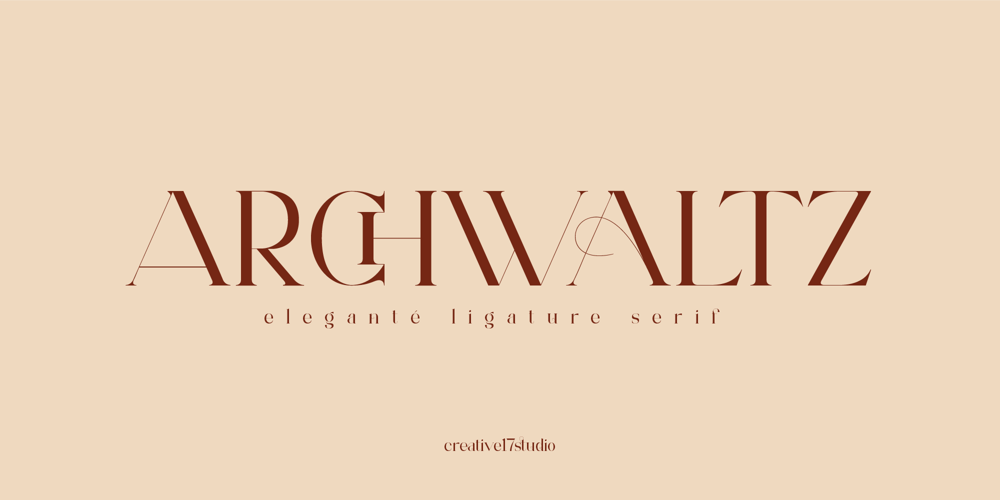
Archwaltz
Archwaltz font
Archwaltz Font Family was designed by Irfan Hidayat and published by Creative17studio. Archwaltz contains 2 styles and family package options. “Archwaltz” a new elegant ligature serif font.Inspired by the word elegant, Archwaltz is a font that is super unique and has a luxurious also modern impression. With lots of elegant ligatures, you definitely don’t want to forget it.Archwaltz is ideal for a wide variety of designs, such as news headlines, letter logos, business cards, poster designs, wedding invitations, and many uses in other design projects. Archwaltz containing many characters and ligatures, numbers, punctuation and European Languages.Archwaltz contains:- Standard Character set- Ligature- Few Alternate- Numeral & Punctuation- Multilingual SupportAvailable Regular & Italic Style